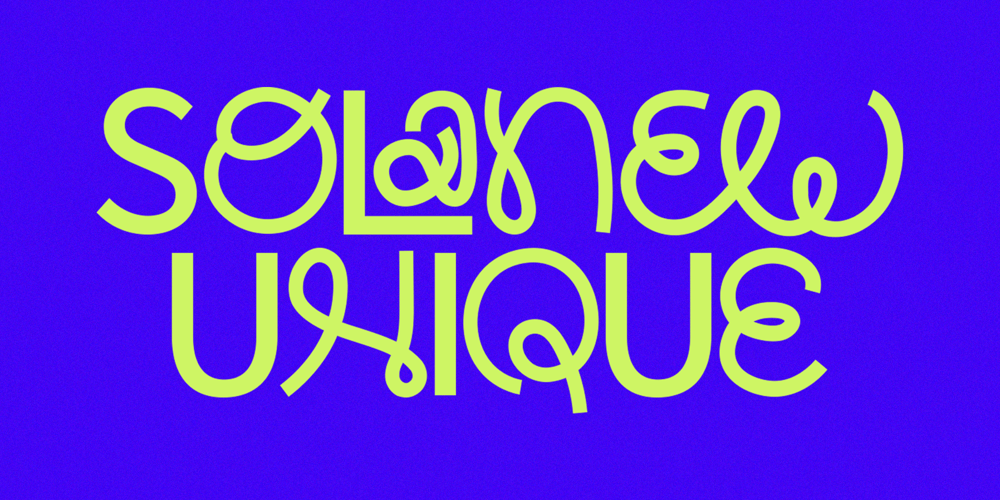
Solanew Font Family was designed by Muhammad Rizaldi and published by Inviline. Solanew contains 1 styles and family package options. Meet Solanew, a playful sans-serif font that brings a fresh and friendly vibe to your designs. With its bold curves and charming personality, it’s perfect for logos, posters, social media, and more. Make your projects stand out